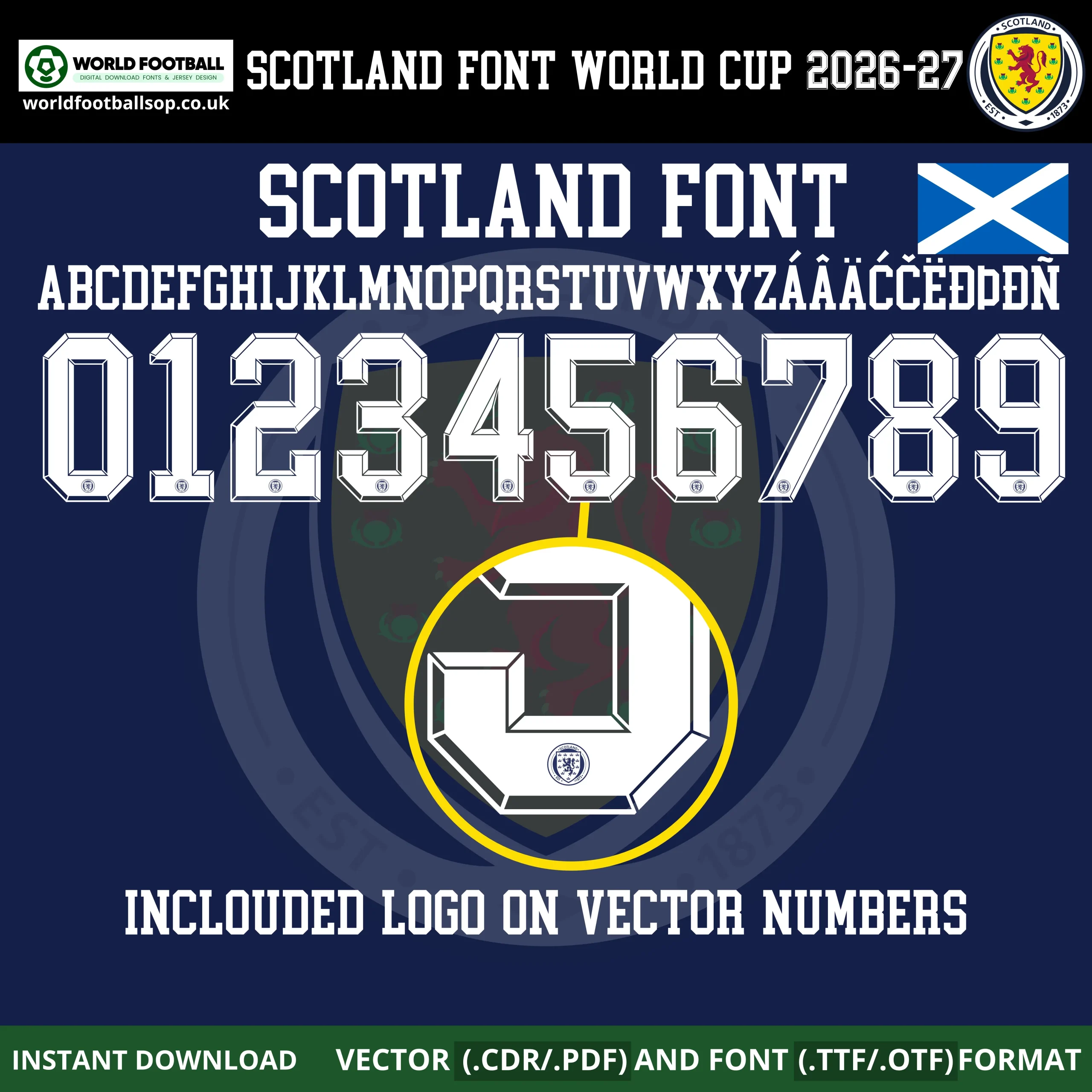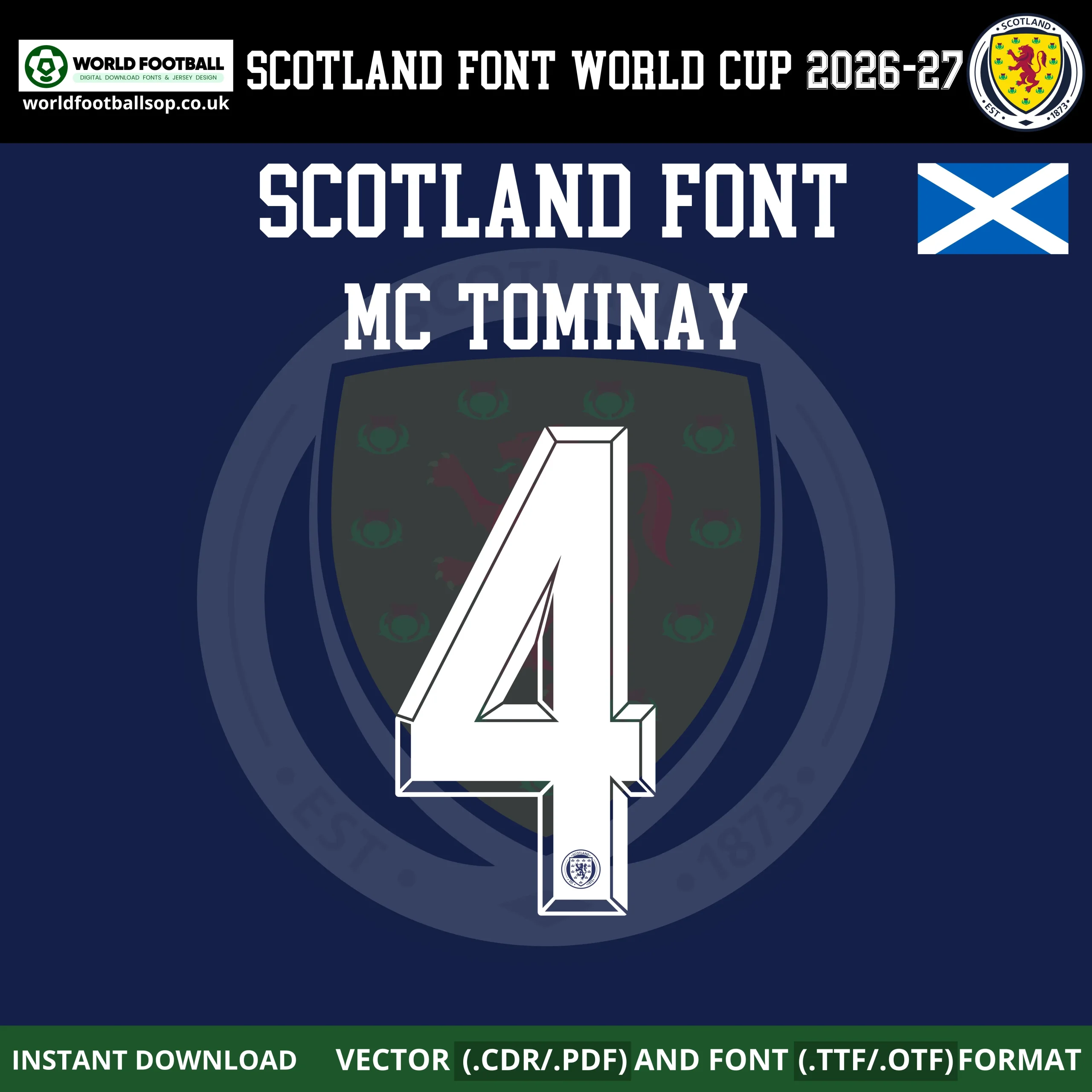
Scotland World Cup 2026 Home Font - Classic Tartan Army Jersey Style
Bring Hampden Park energy into your designs with the Scotland Font World Cup 2026 Home Kit. This bold, three-dimensional football font is inspired by the bespoke typography created for Scotland’s dark navy 2026 home shirt, which features a Saltire‑inspired pattern and thick white Adidas shoulder stripes. The numbers have a strong block shape with beveled edges and inner shadows, giving them a premium, almost carved look that stands out perfectly on the deep navy background.
Designed for fans, kit printers and graphic designers, this pack lets you build authentic‑looking Scotland namesets for replica jerseys, banners, posters and social media content. The font reflects the national identity through its traditional college‑style letterforms, while fine details like outline layers and tiny crest positions on the bottom of the numbers echo the real match shirts. Whether you are creating your own “McTominay 4” shirt or a full squad sheet, every name and number combination keeps the same professional, on‑pitch feel.
Full uppercase A-Z alphabet plus extended characters and accents used in Scottish names (Á, À, Ä, É, Ë, Ó, Ö, Ð, Ñ, etc.)
Numbers 0-9 in the official‑style 3D block design, with the Scotland crest included on the vector numbers as shown on the real kit
Design highlights
World Cup ready: Based on Scotland’s 2026 Adidas home kit, featuring a deep navy base with Saltire‑inspired pattern and strong white trim
Bespoke typeface: Scotland uses its own custom font instead of the generic Adidas 2026 World Cup type, so your designs stand out from other national teams